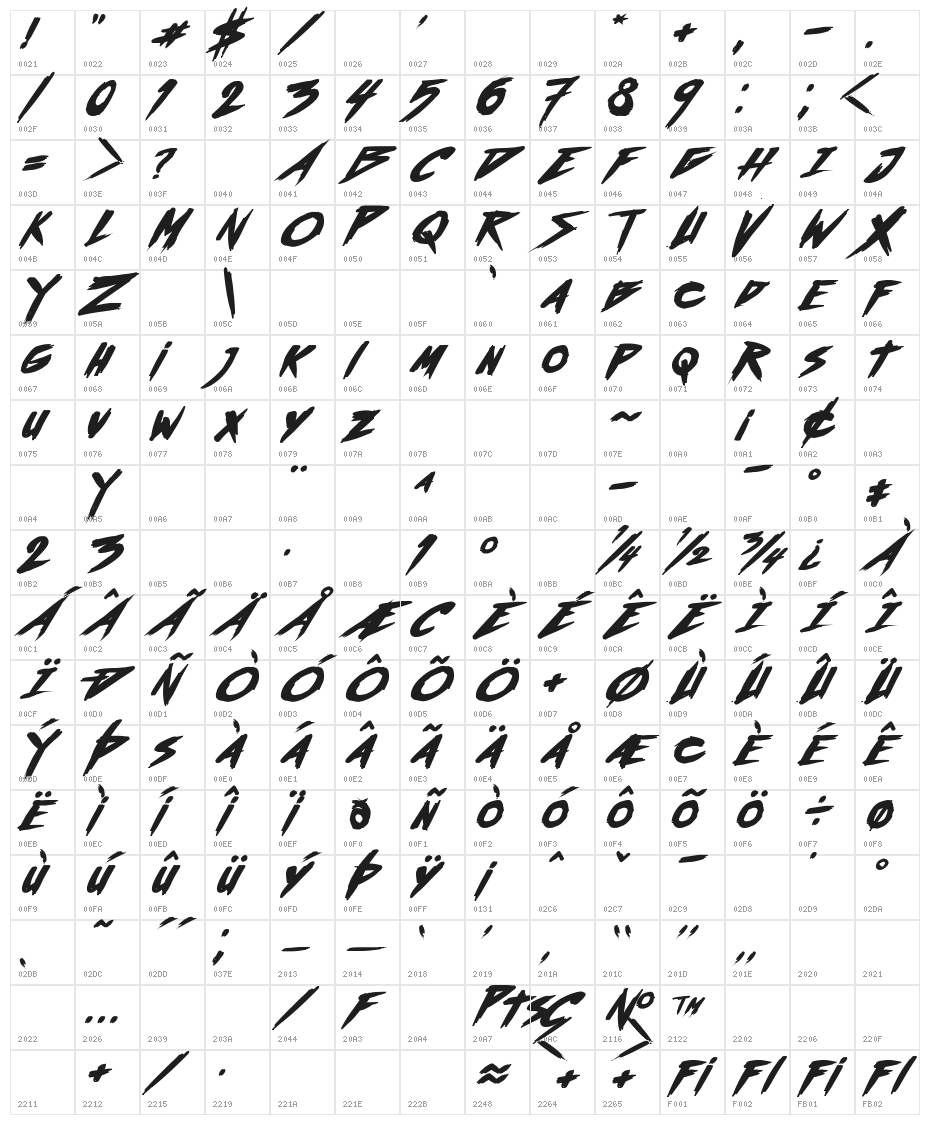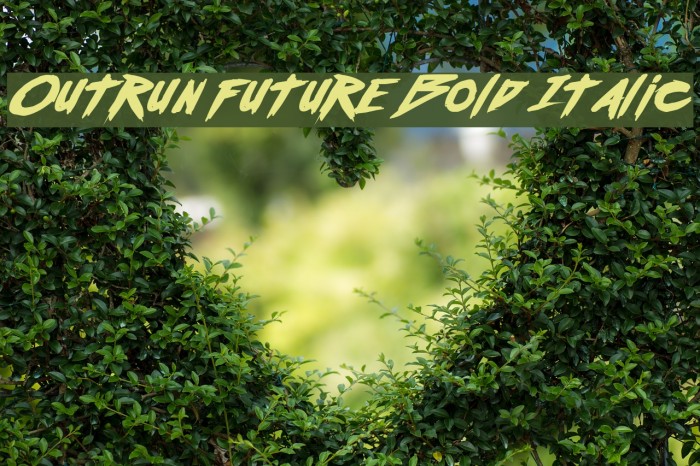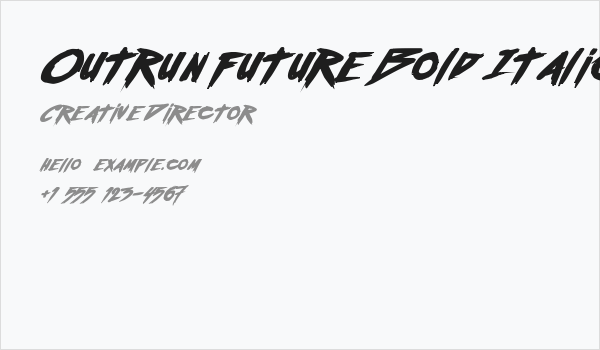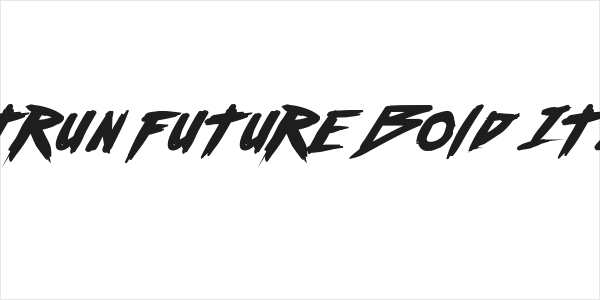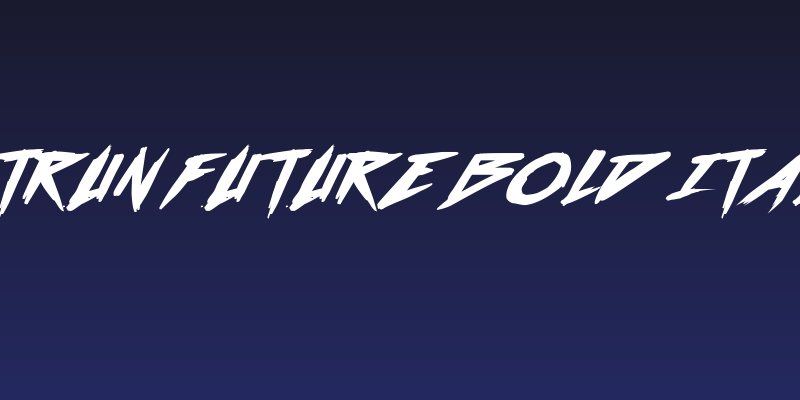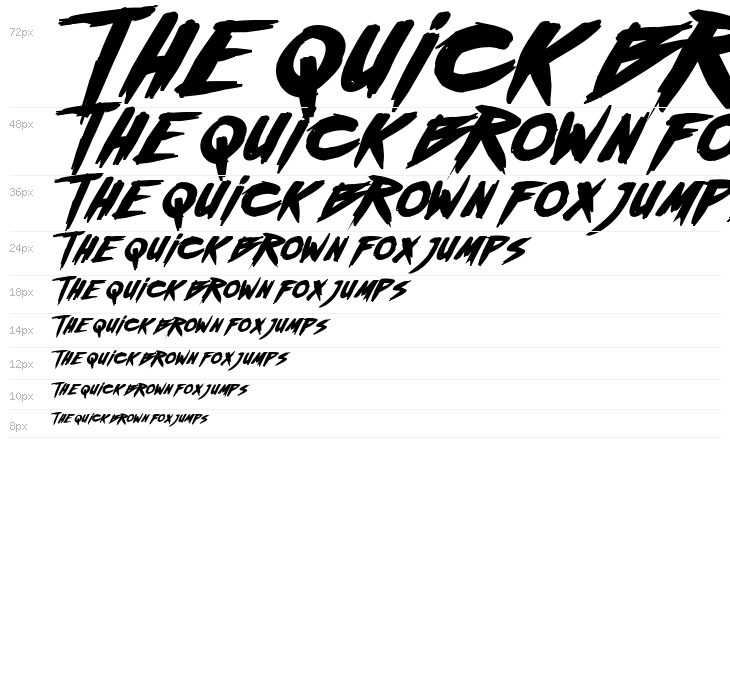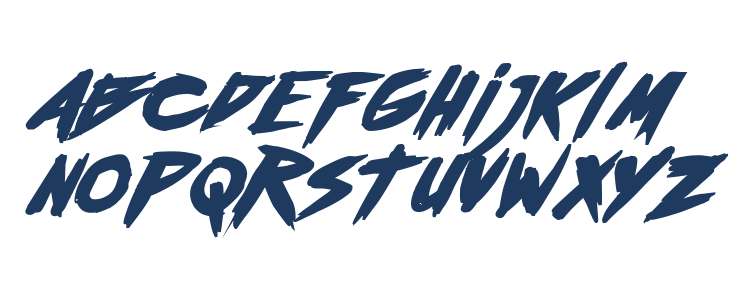
Outrun future Bold Italic Font
Outrun future Bold Italic Description
This font features a bold and italicized style with a futuristic and dynamic appearance. The characters are sharply angled, giving them a sense of motion and energy. The strokes are thick and aggressive, with a high contrast between thick and thin lines, adding to the dramatic flair. The design is reminiscent of retro-futuristic aesthetics, often associated with the 1980s and cyberpunk themes. The uppercase and lowercase letters maintain a consistent style, with exaggerated serifs and pointed edges that enhance the overall edgy look. The numerals and special characters follow the same bold and angular design, ensuring uniformity across all elements.
| Overall Style | Futuristic, Retro |
| Proposed Projects | Ideal for projects that require a bold, eye-catching design such as video game titles, movie posters, album covers, and branding for tech or entertainment industries. |